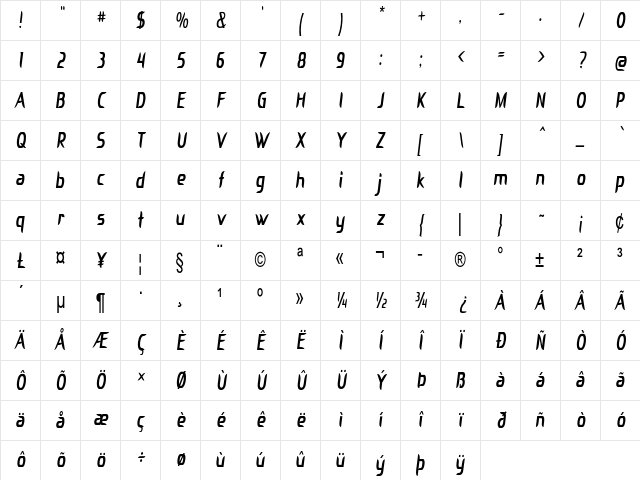
Paradisio Condensed Regular
Style: Condensed Regular
Paradisio Family
Paradisio Condensed Regular
Design Context for Paradisio
Paradisio is a composed and adaptable typeface that performs quietly and consistently across a wide range of design contexts. Its narrow stance lets it pack a punch even in space-constrained designs.